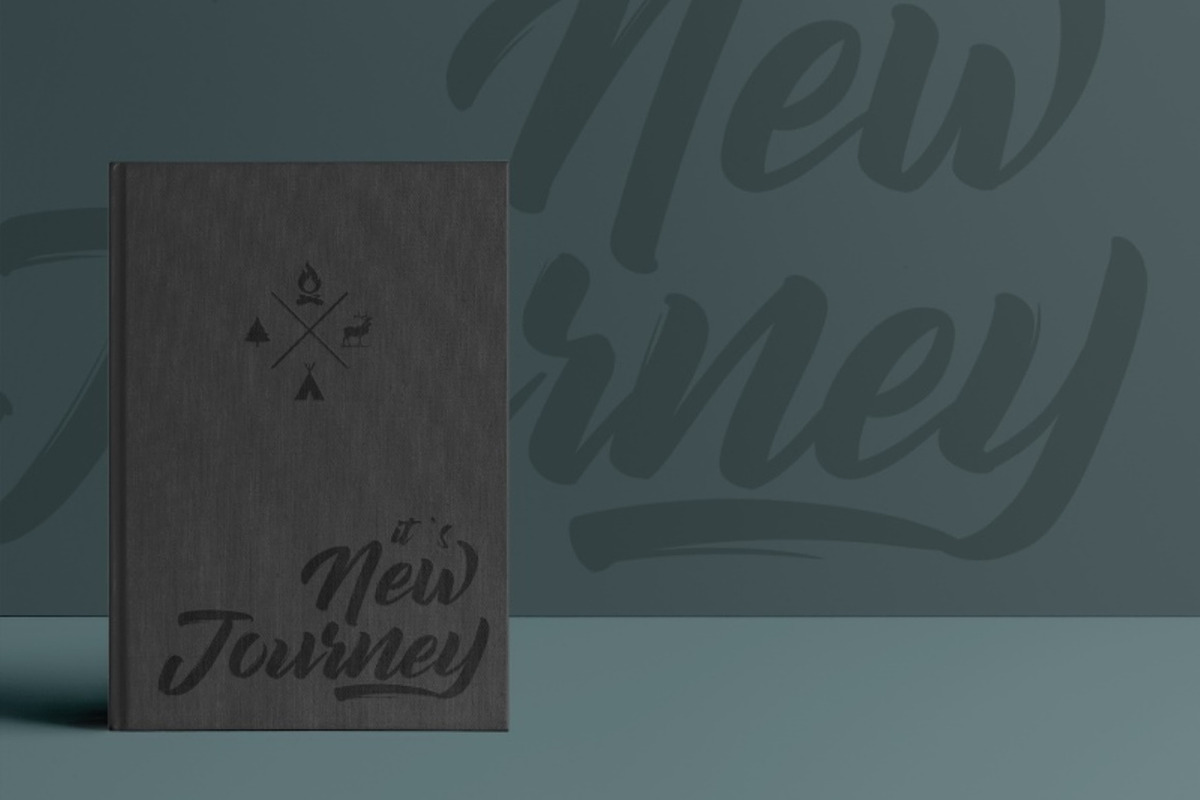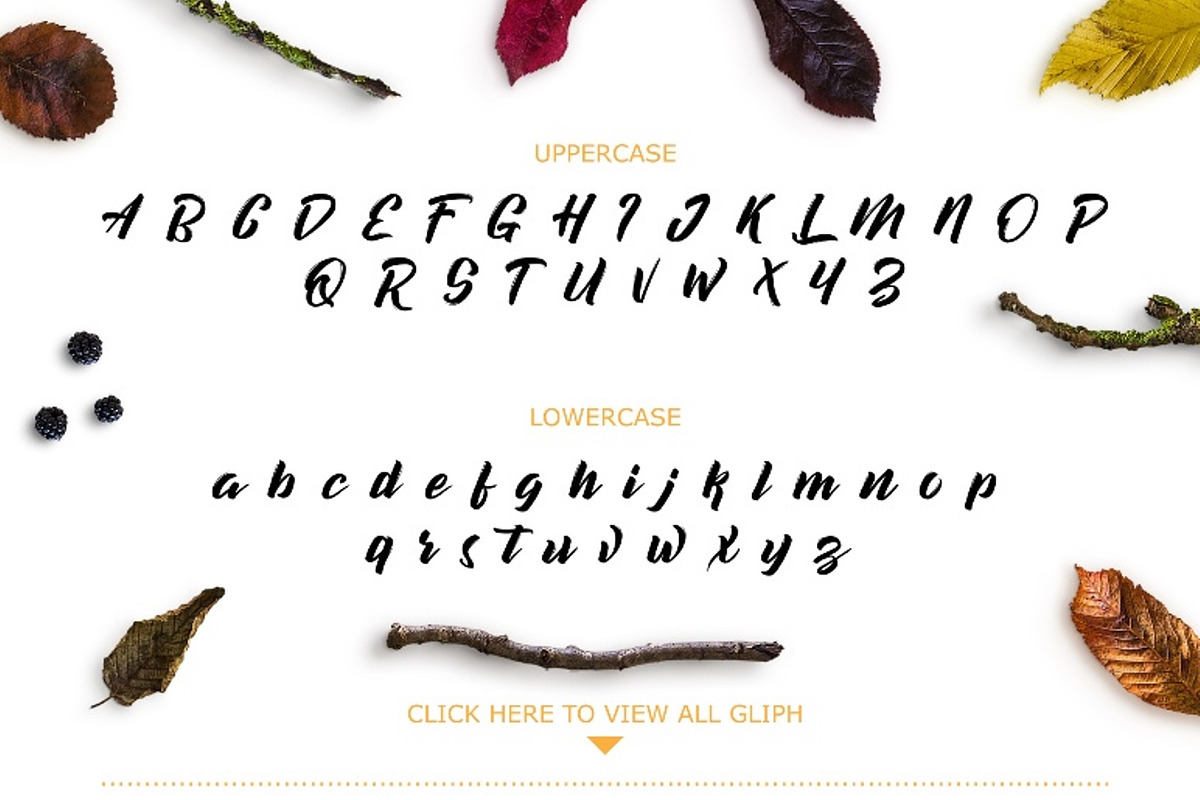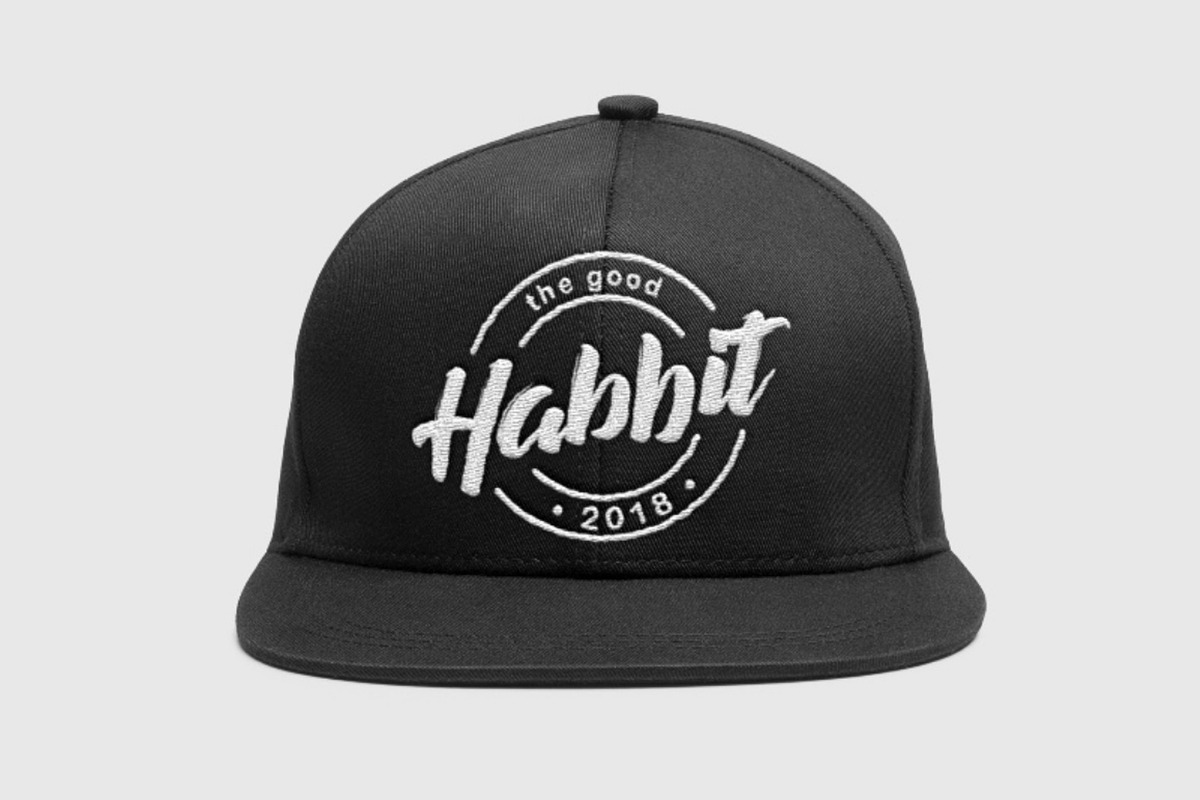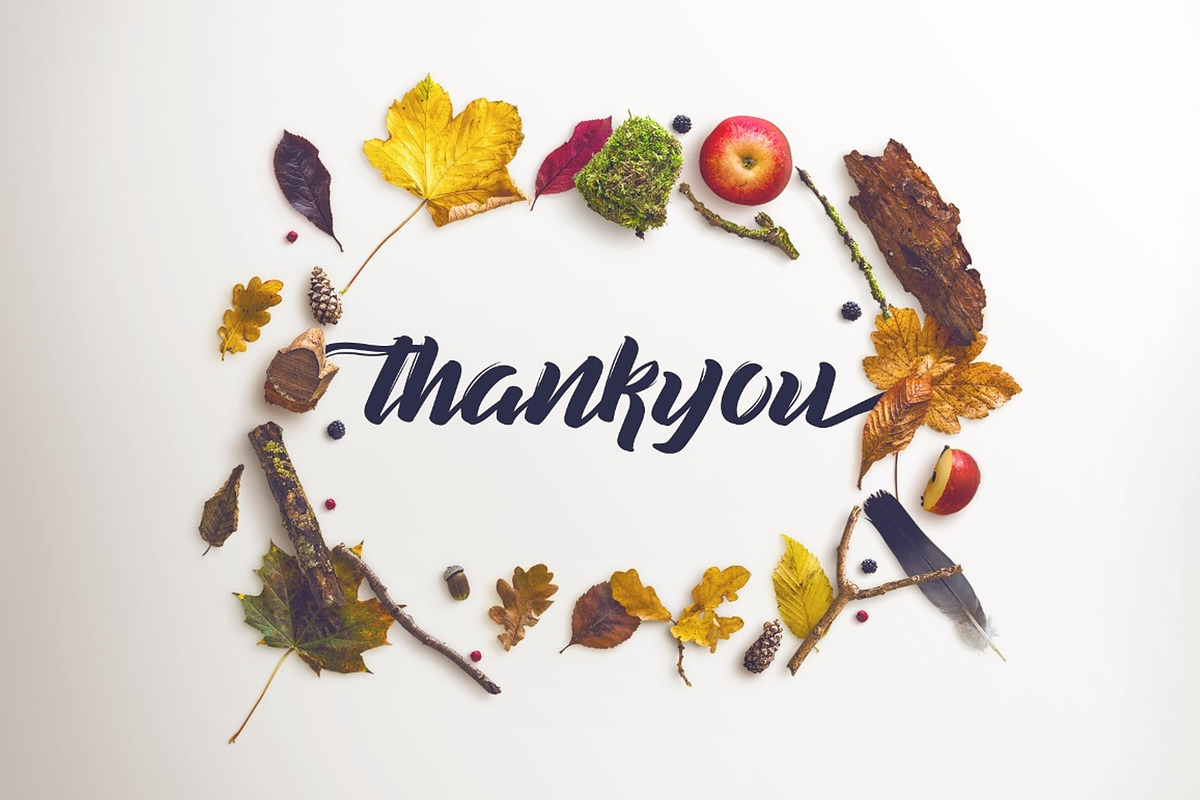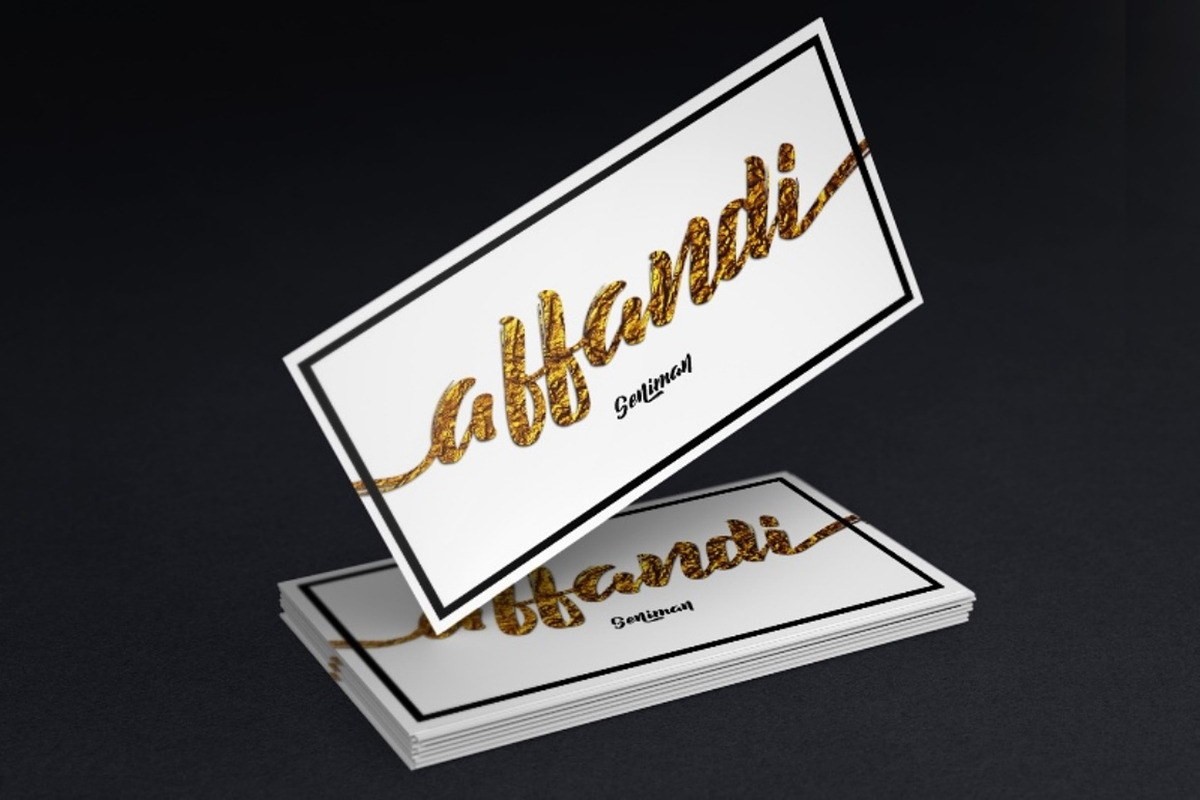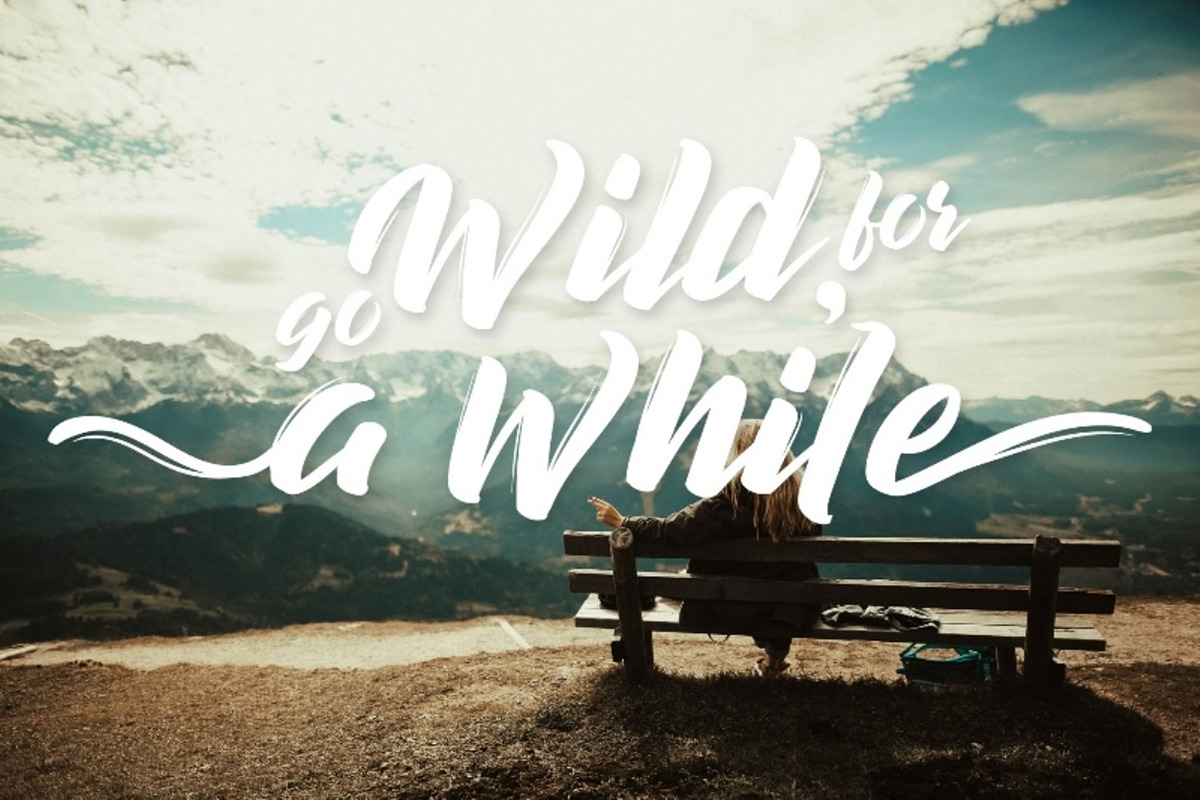
Decalled - Stylistic Fonts
Introducing Decalled Script.
Decalled Script is sharp and elegant font script. Comes with many opentype feature, upper and lower case standard character, punctuation and numerals, multilingual characters, ligatures, stylistic alternates, swash, and many more glyph.
Perfect for personal and commercial use your company logo, branding, poster, flyers, greetings, invitation, book cover, quotes, and many more.
Decalled - Stylistic Fonts by SemutHitam Creative fits naturally into Branding, posters, packaging, typography.